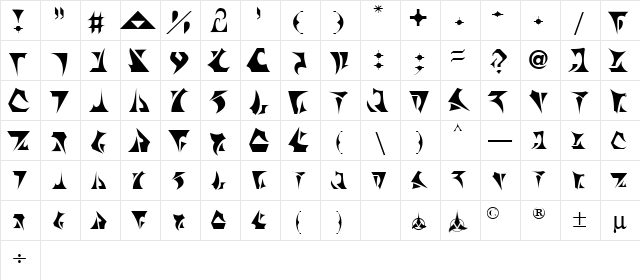
Complete BernyKlingon Regular glyph index. Displaying only characters natively supported by BernyKlingon Regular font.
BernyKlingon is a composed and adaptable typeface that performs quietly and consistently across a wide range of design contexts.